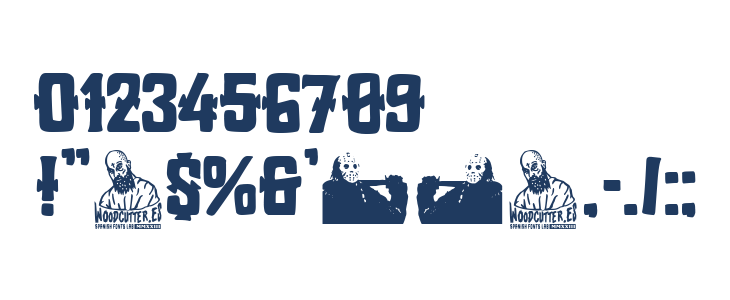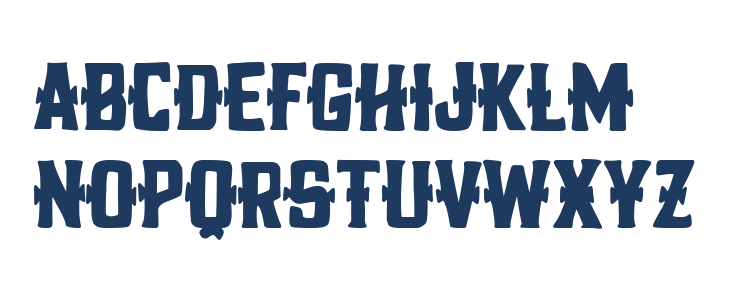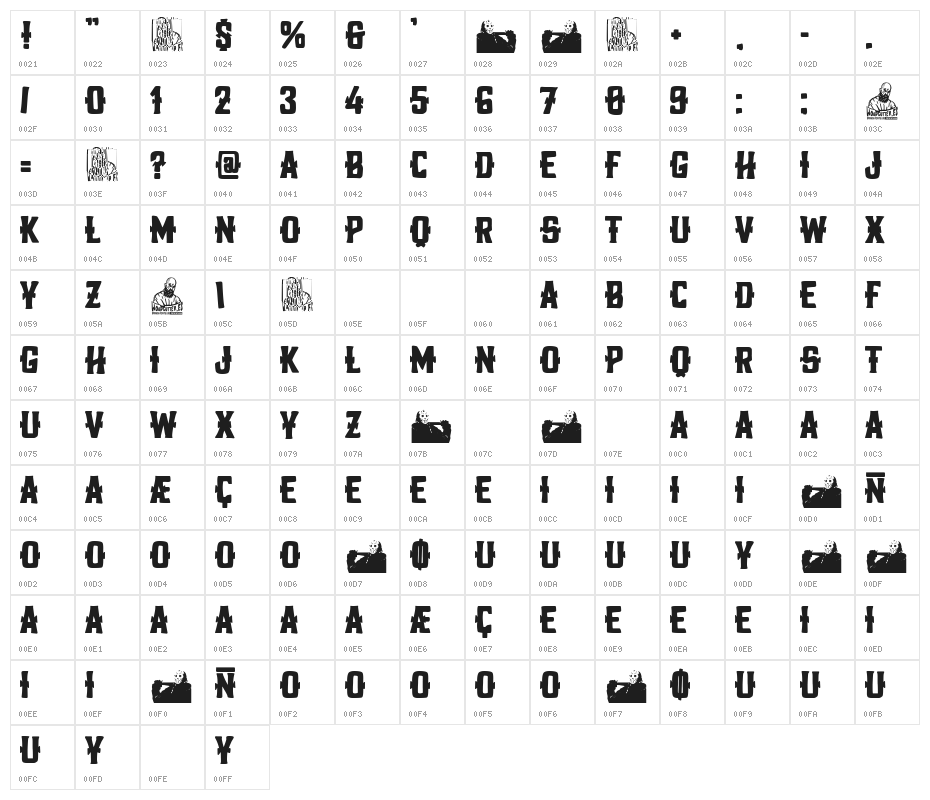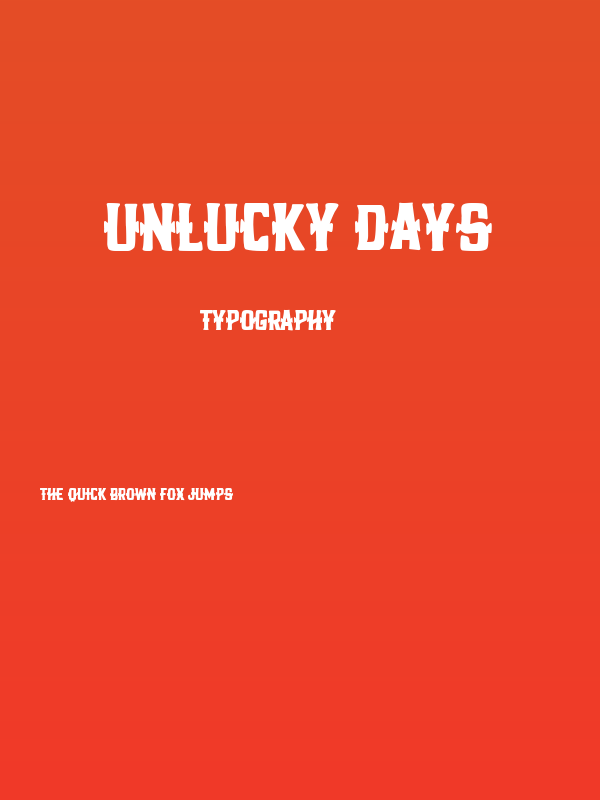
Unlucky Days Font
Unlucky Days Description
A bold, display typeface with heavy, blocky letterforms and unique, jagged cutout shapes in the center of each character, evoking a distressed or horror-inspired aesthetic. The font features all uppercase letters, numbers, and select punctuation, with consistent stroke thickness and minimal variation in width.
| Overall Style | Decorative, Horror, Grunge |
| Use Case | Headlines, Posters, Logos, Themed Graphics |
| Proposed Projects | Halloween posters, horror movie titles, event flyers, themed party invitations, video game graphics. |